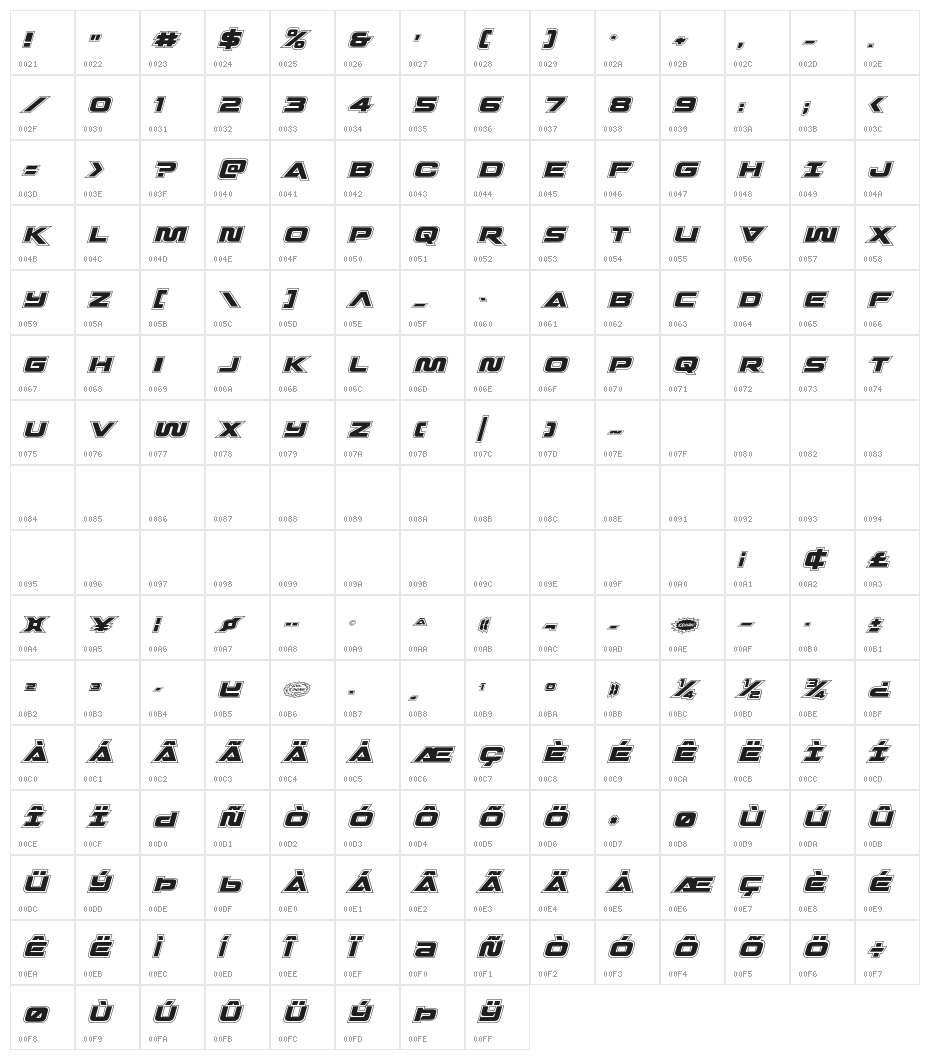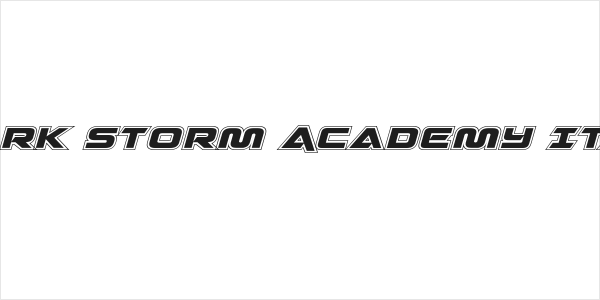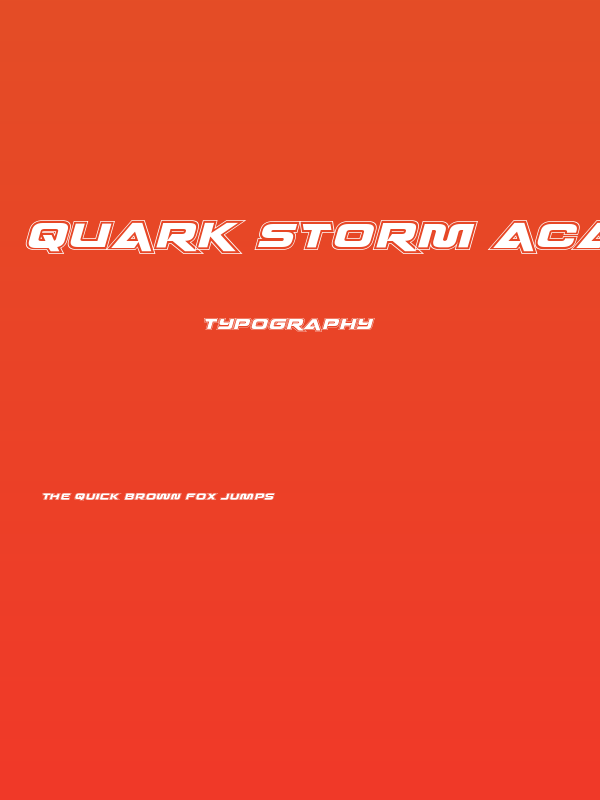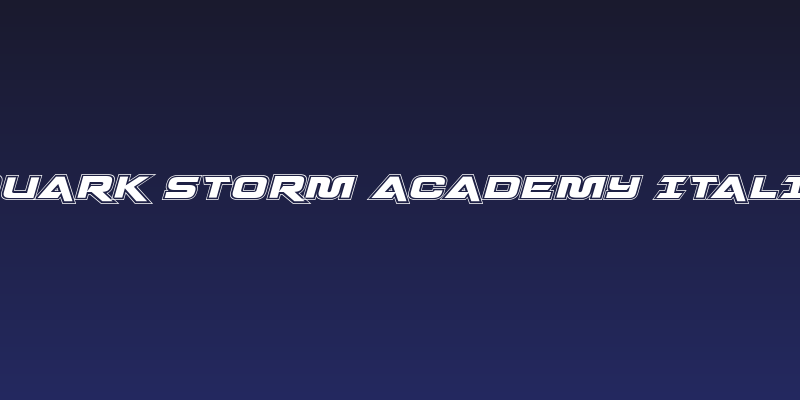
Quark Storm Academy Italic Font
Quark Storm Academy Italic Description
This font features a bold, italicized style with a futuristic and dynamic appearance. The characters are outlined, giving them a three-dimensional effect that enhances their visual impact. The design incorporates sharp angles and a slightly condensed form, which contributes to its modern and energetic feel. The uppercase letters are particularly striking, with a consistent slant that adds to the overall sense of motion. The numerals and special characters maintain the same stylistic elements, ensuring uniformity across all glyphs. This font is ideal for projects that require a strong, attention-grabbing typeface.
| Proposed Projects | Ideal for sports branding, video game titles, sci-fi themed posters, and dynamic logo designs. |